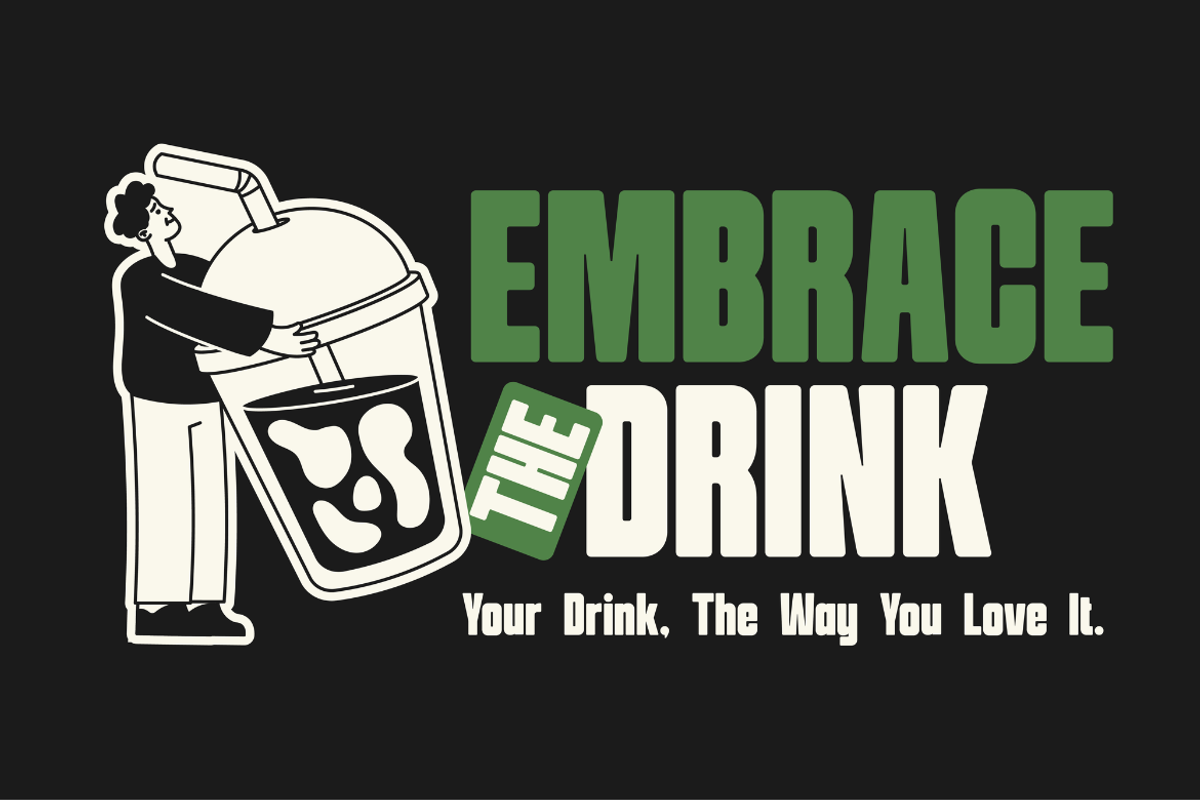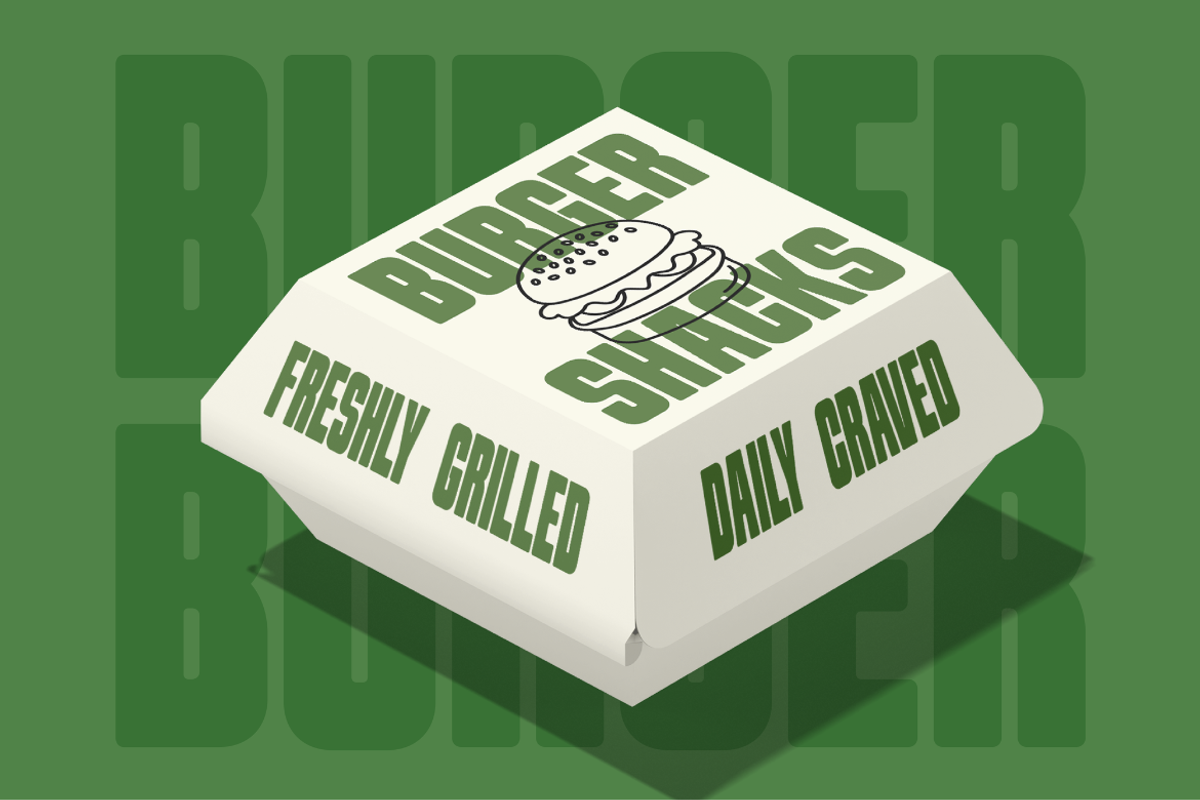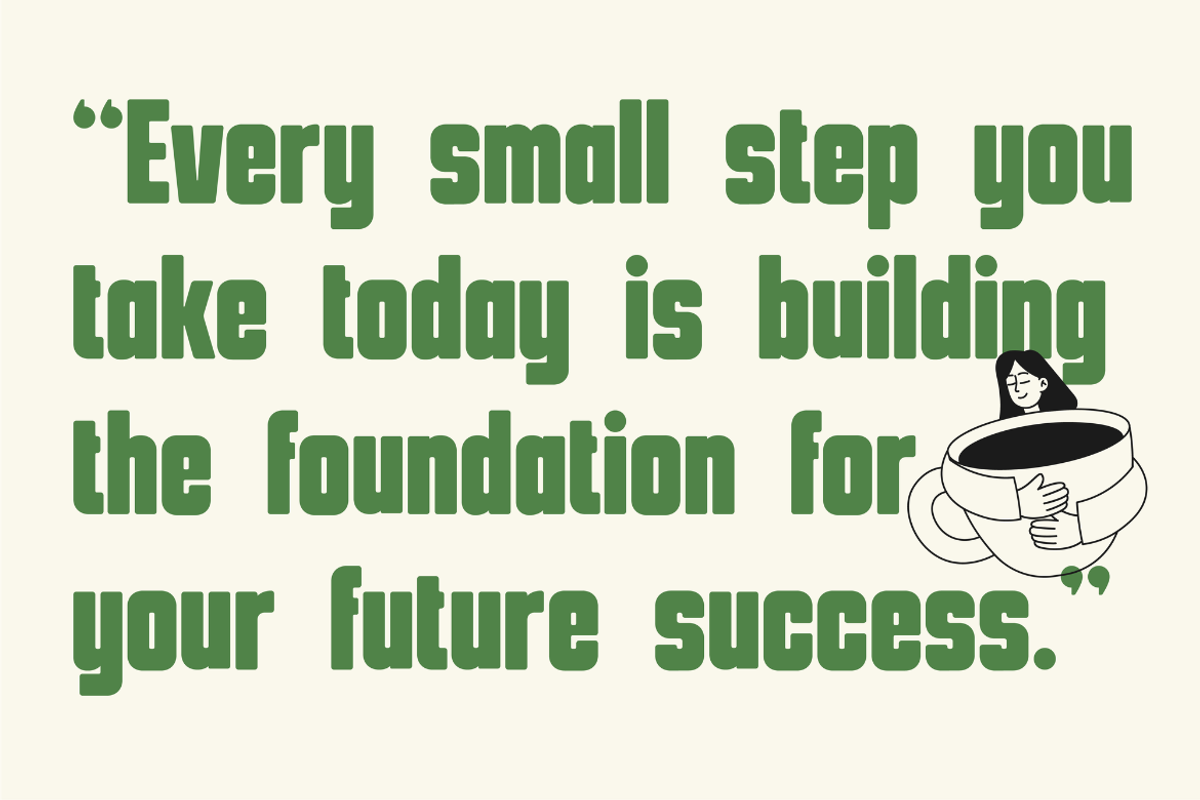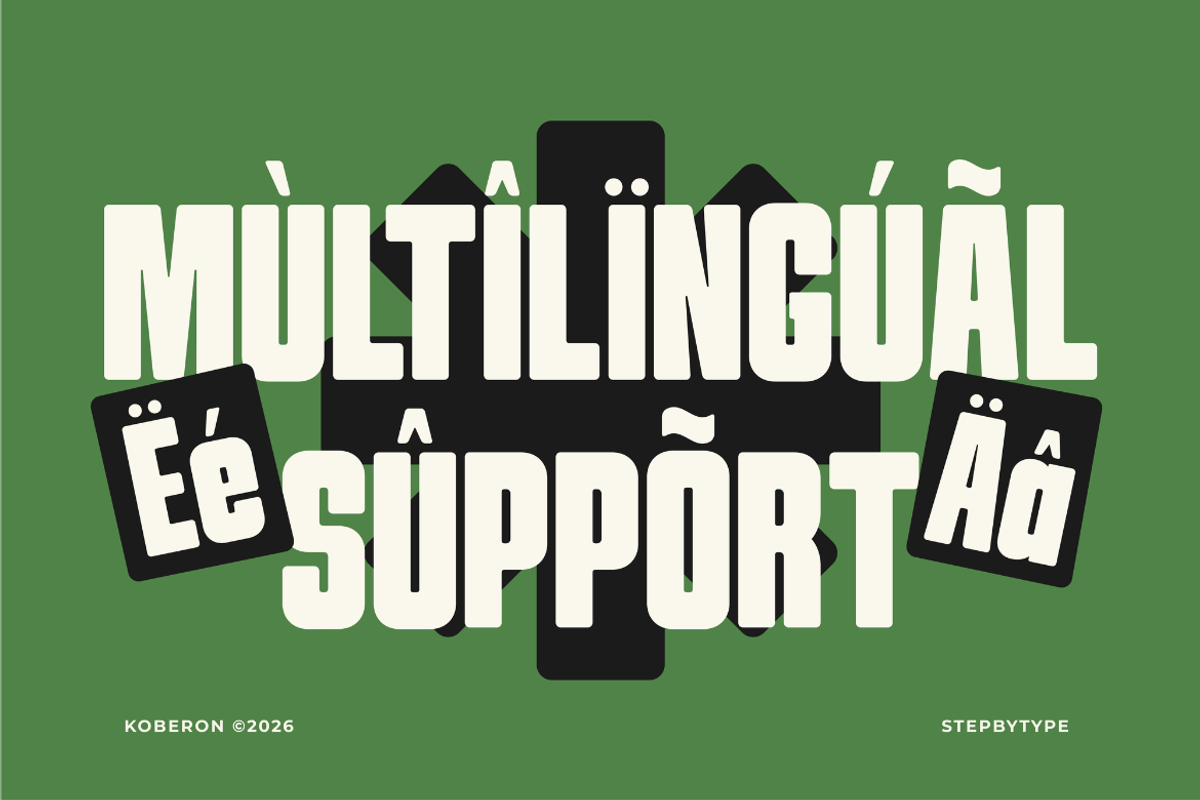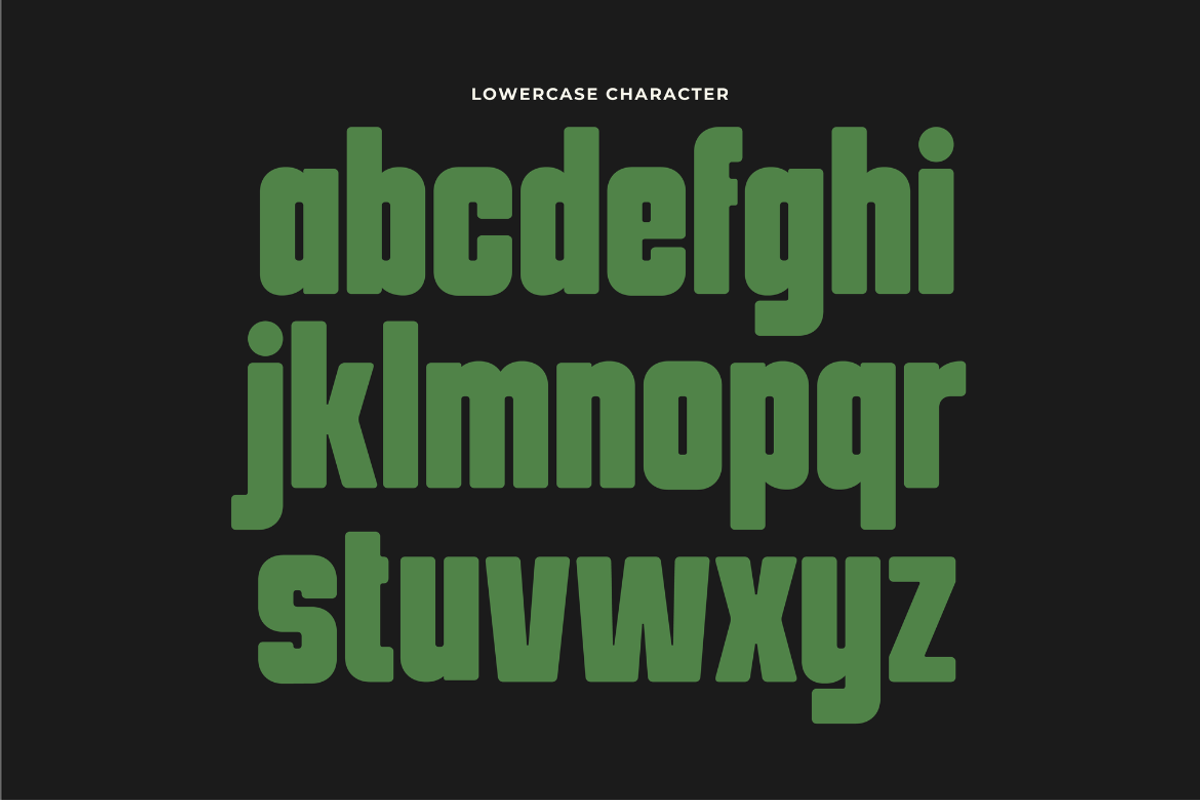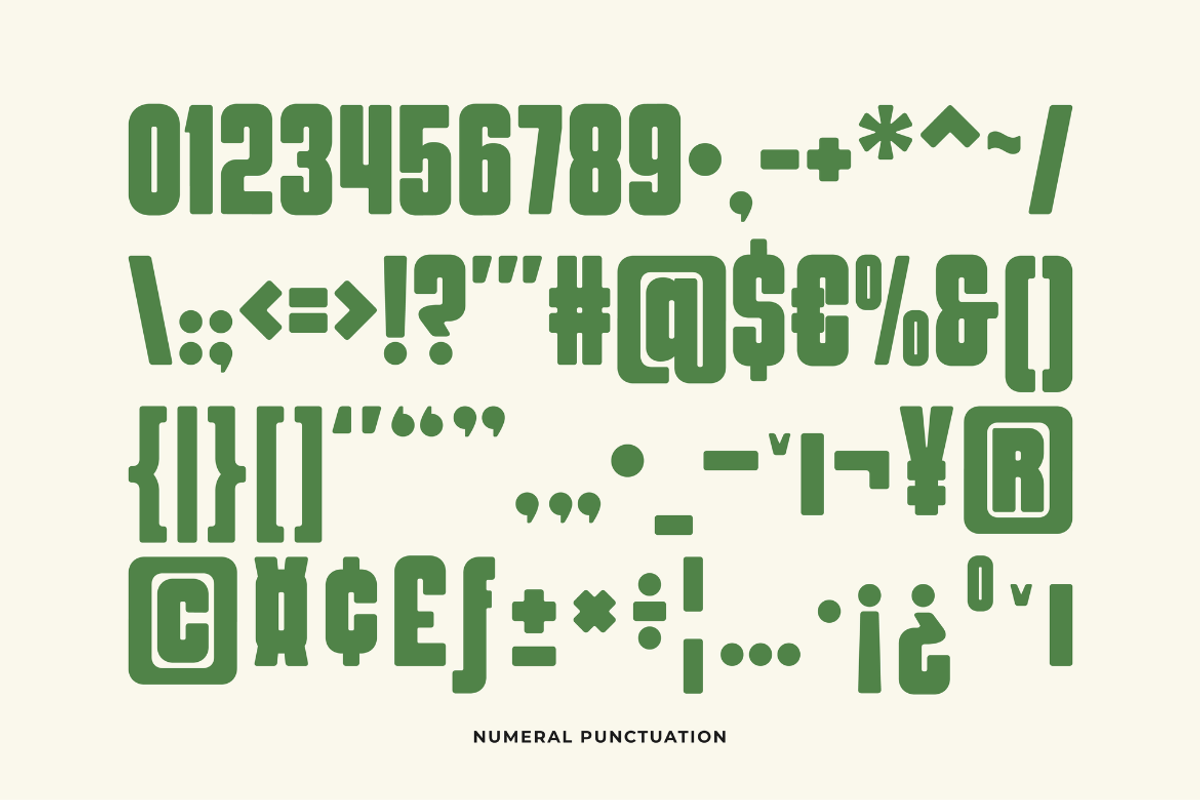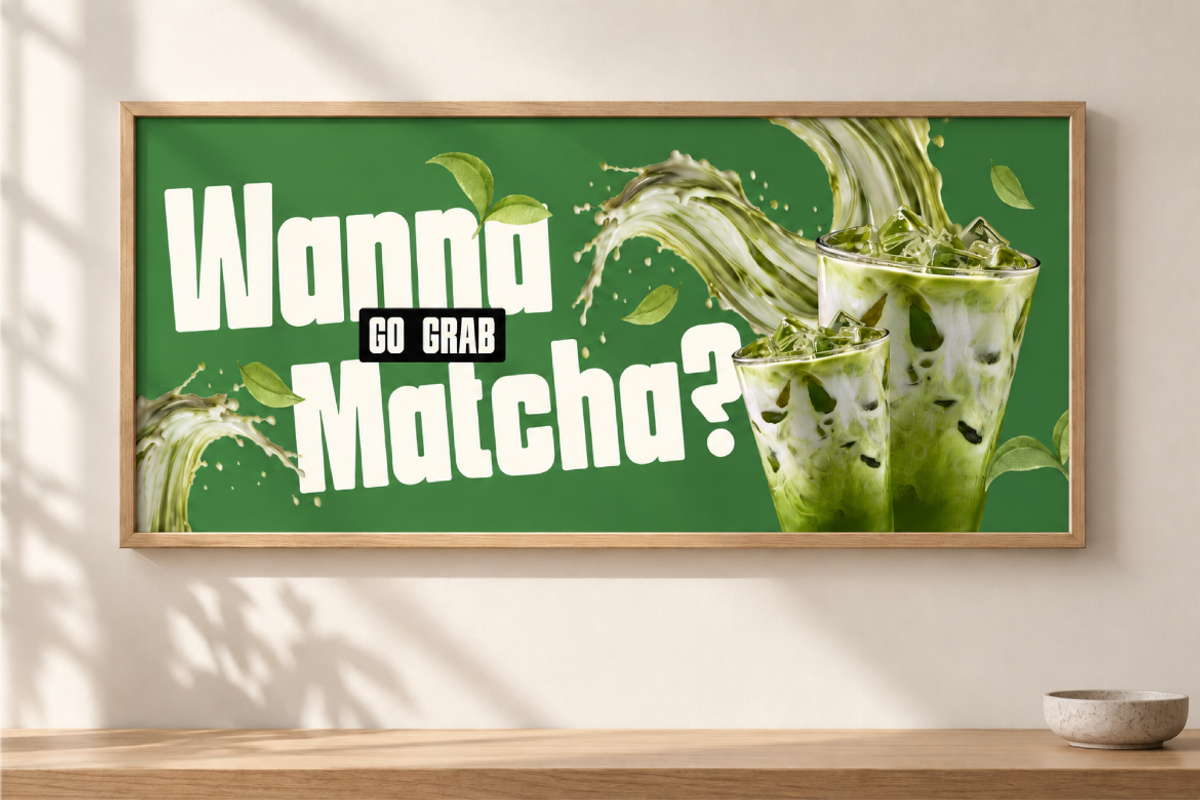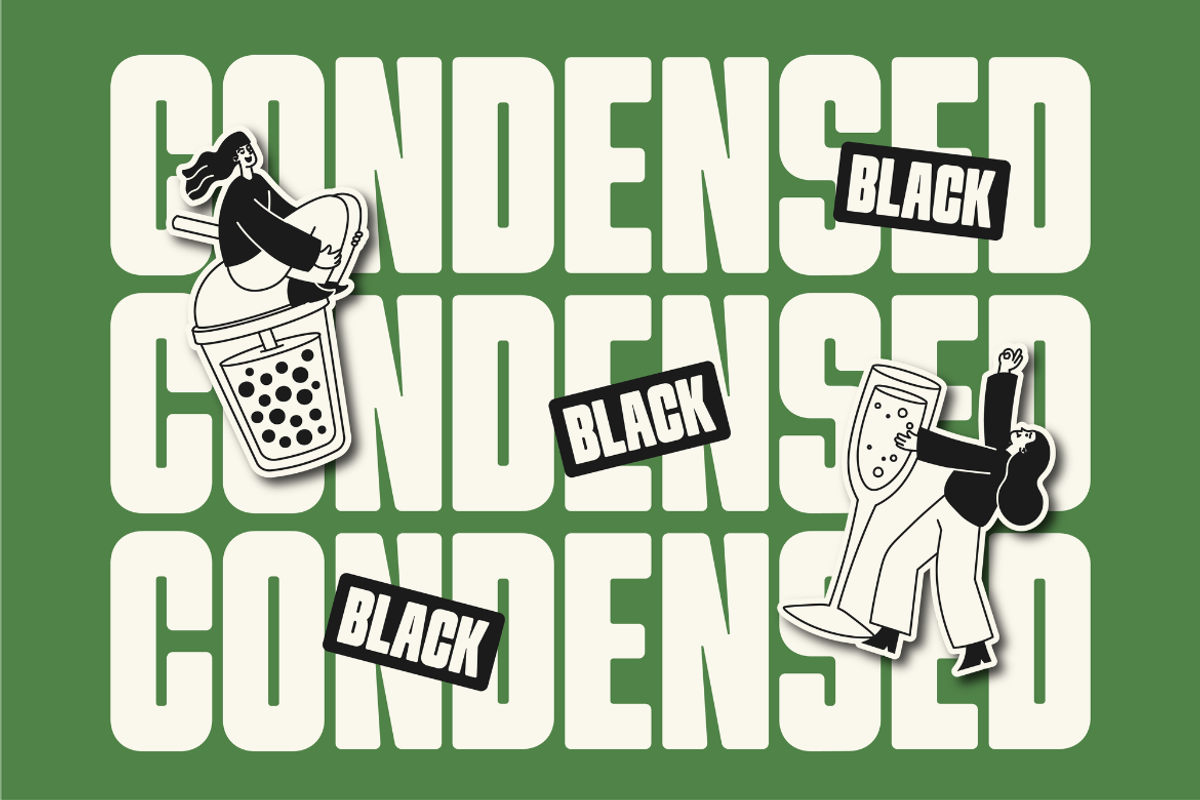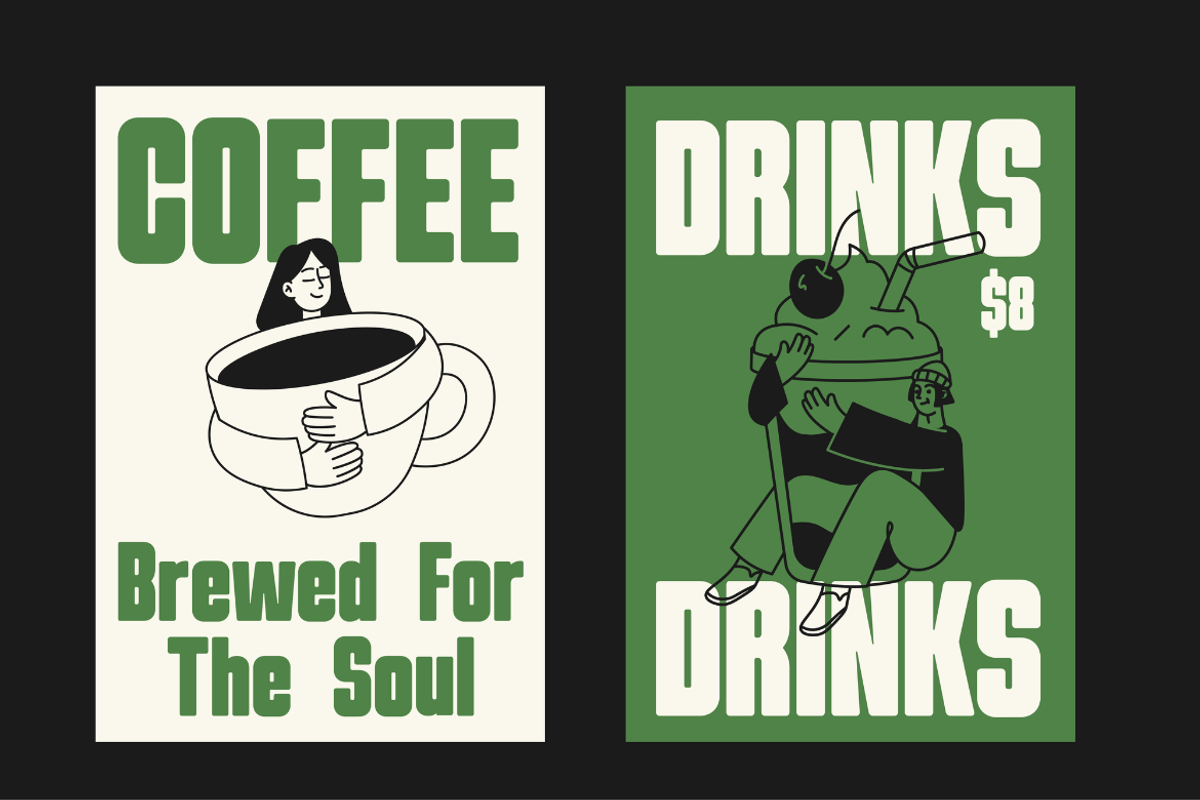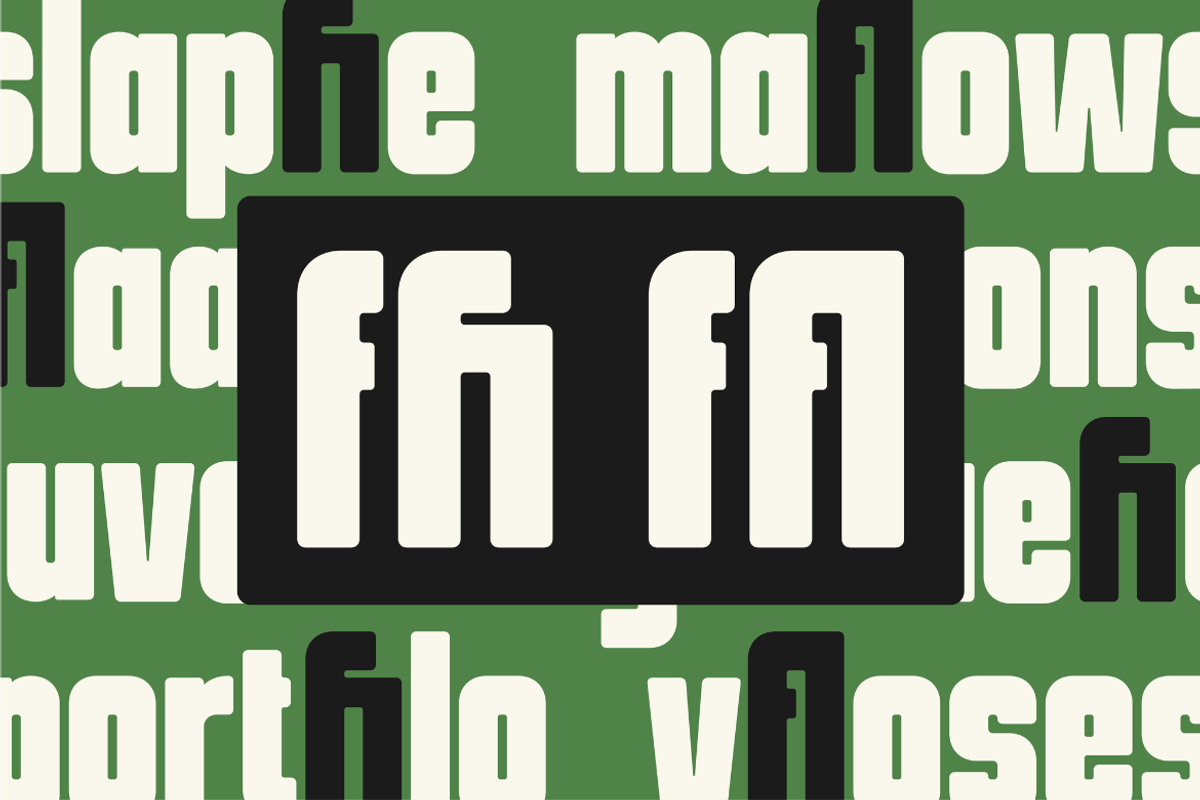
Koberon Black
Koberon Black is a bold condensed display sans-serif typeface with a strong, playful, and modern visual identity. The font features thick geometric strokes, compact letter spacing, and slightly rounded corners that create a powerful headline presence while maintaining a friendly personality.
Its heavy weight structure makes it highly suitable for attention-grabbing designs, especially where a bold and energetic statement is needed.